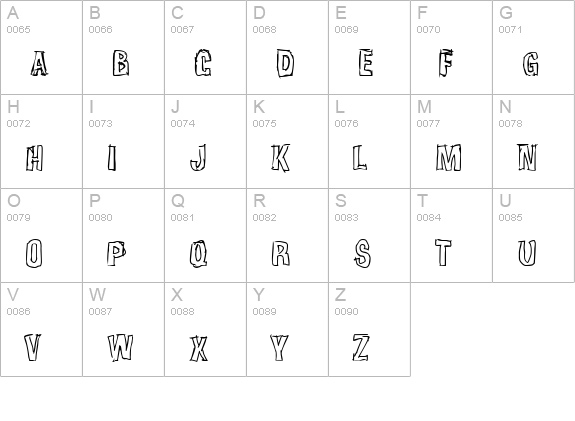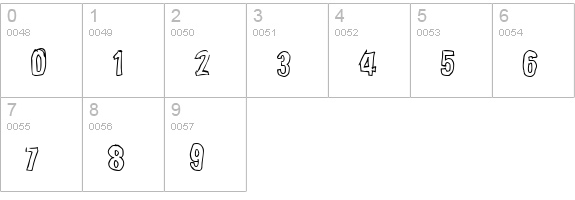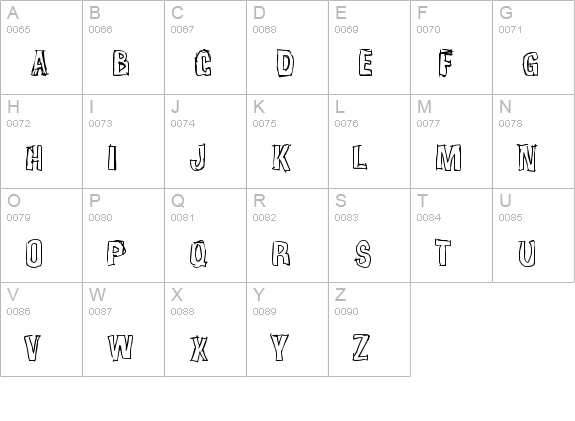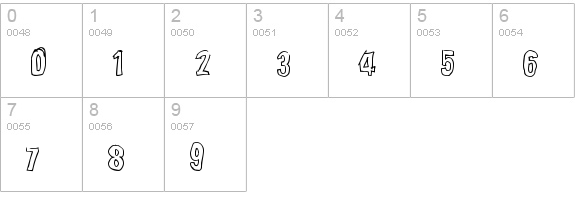
Weirdmojo Font Details
Introducing the extraordinary Weirdmojo font, a unique and eccentric typeface that will bring an element of quirkiness to your designs. With its unconventional and playful letterforms, Weirdmojo is the perfect choice for those seeking a font that stands out from the crowd. This font is the result of a creative journey through the realms of imagination, where boundaries are pushed and conventions are left behind. Its irregular shapes and unexpected curves give it a distinctive charm that will captivate any audience. But what truly sets Weirdmojo apart is its versatility. Whether you're designing a poster, a logo, or a website, this font adapts effortlessly to any project, adding a touch of eccentricity and individuality. From bold headlines to subtle accents, Weirdmojo has the power to transform any design into a work of art. And the best part? Weirdmojo is available for free! That's right, this extraordinary font can be yours at no cost. Simply head over to FontsMarket.com and download it instantly. We believe that creativity should be accessible to all, and that's why we've made Weirdmojo freely available. So, if you're looking to add a dash of weirdness to your designs, look no further than Weirdmojo. Download this one-of-a-kind font today and let your imagination run wild. With its unconventional charm and free availability, Weirdmojo is truly a font like no other.